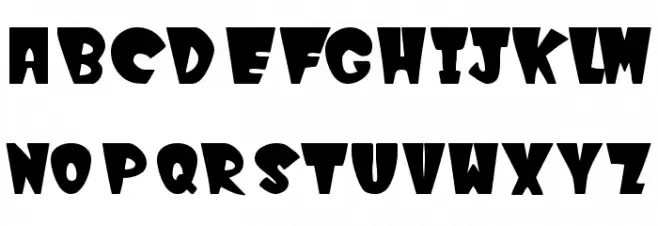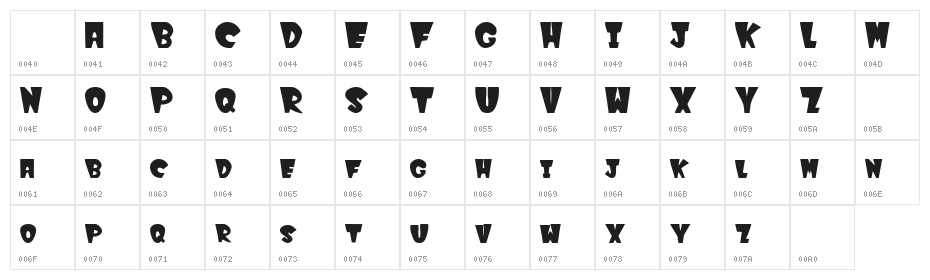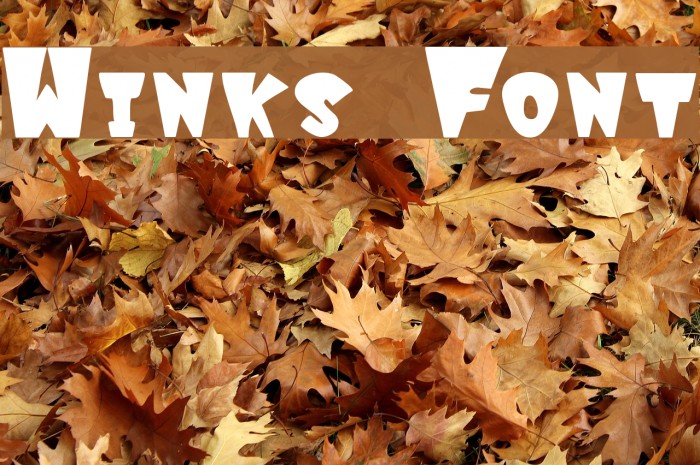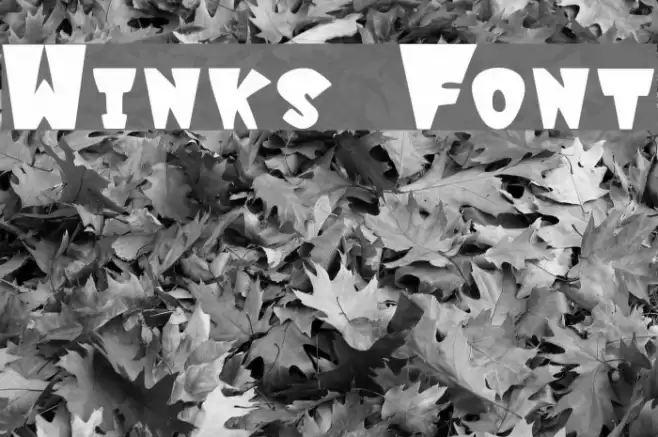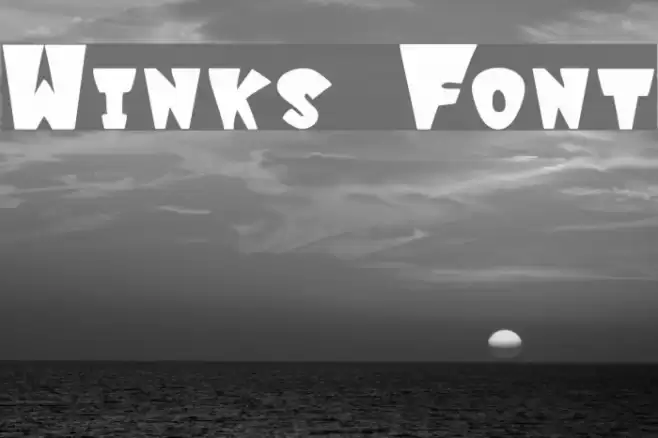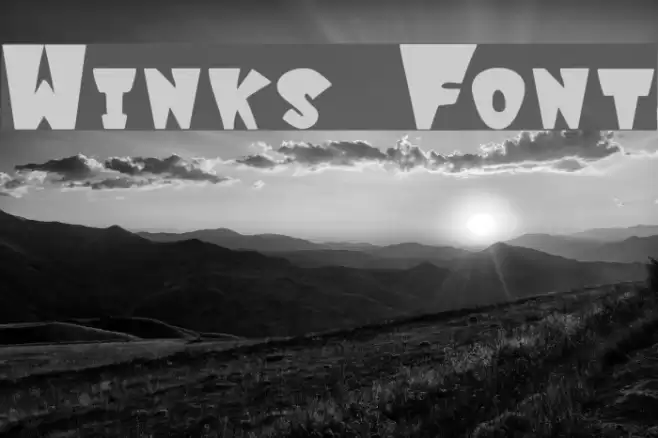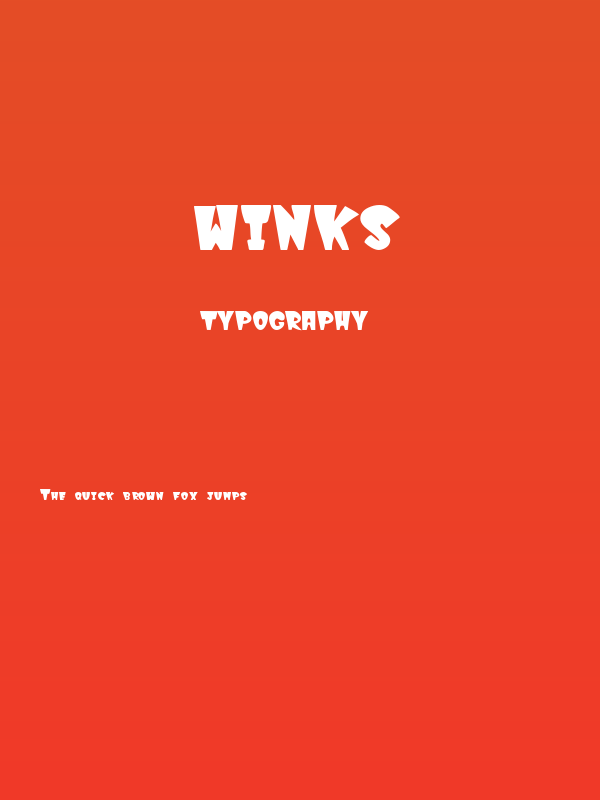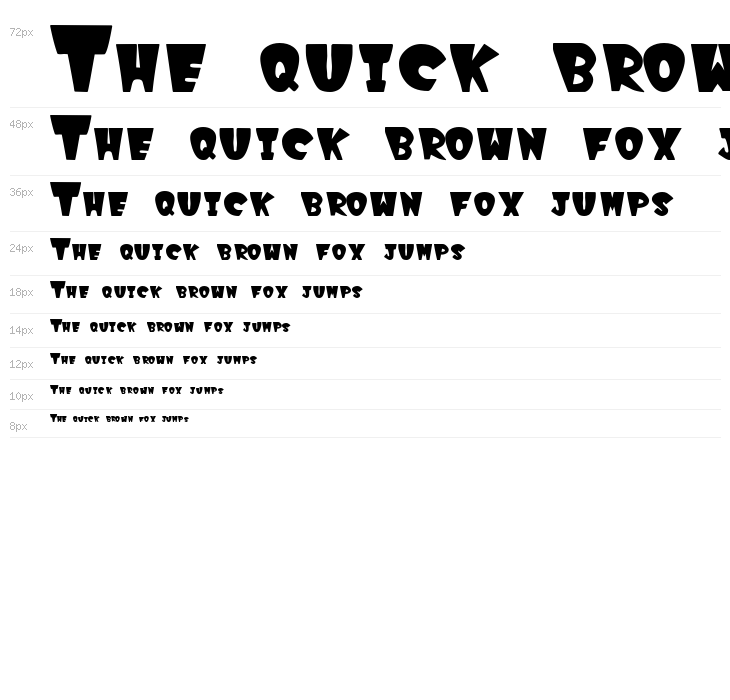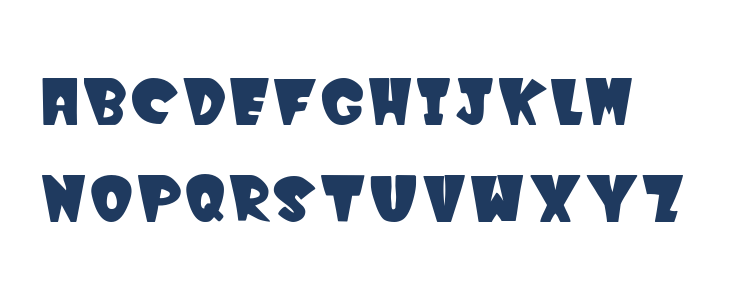
Winks Font
Winks Description
This font features a bold and playful design with a distinctively quirky and whimsical style. The characters are heavily stylized with exaggerated curves and angles, giving them a unique and eye-catching appearance. The uppercase letters are particularly bold, with a strong presence that commands attention. The lowercase letters maintain the playful theme, offering a cohesive look across the typeface. The numbers and special characters are equally stylized, ensuring consistency throughout. This font is ideal for projects that require a fun and dynamic visual impact.
| Overall Style | Playful, Quirky, Fun |